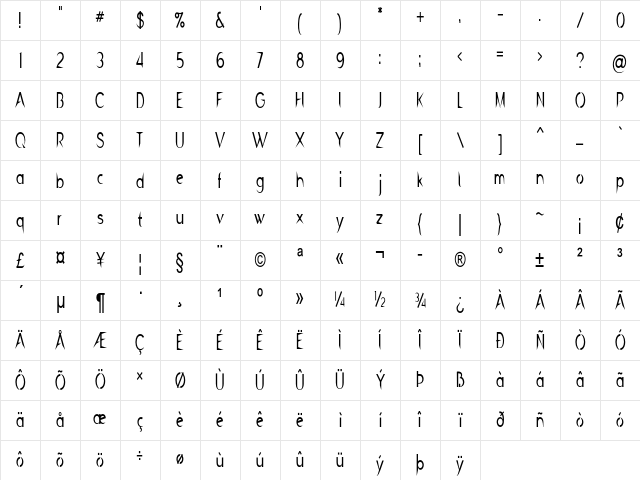
Complete Cassian Condensed Regular glyph index. Displaying only characters natively supported by Cassian Condensed Regular font.
Cassian is a composed and adaptable typeface that performs quietly and consistently across a wide range of design contexts. Its narrow stance lets it pack a punch even in space-constrained designs.